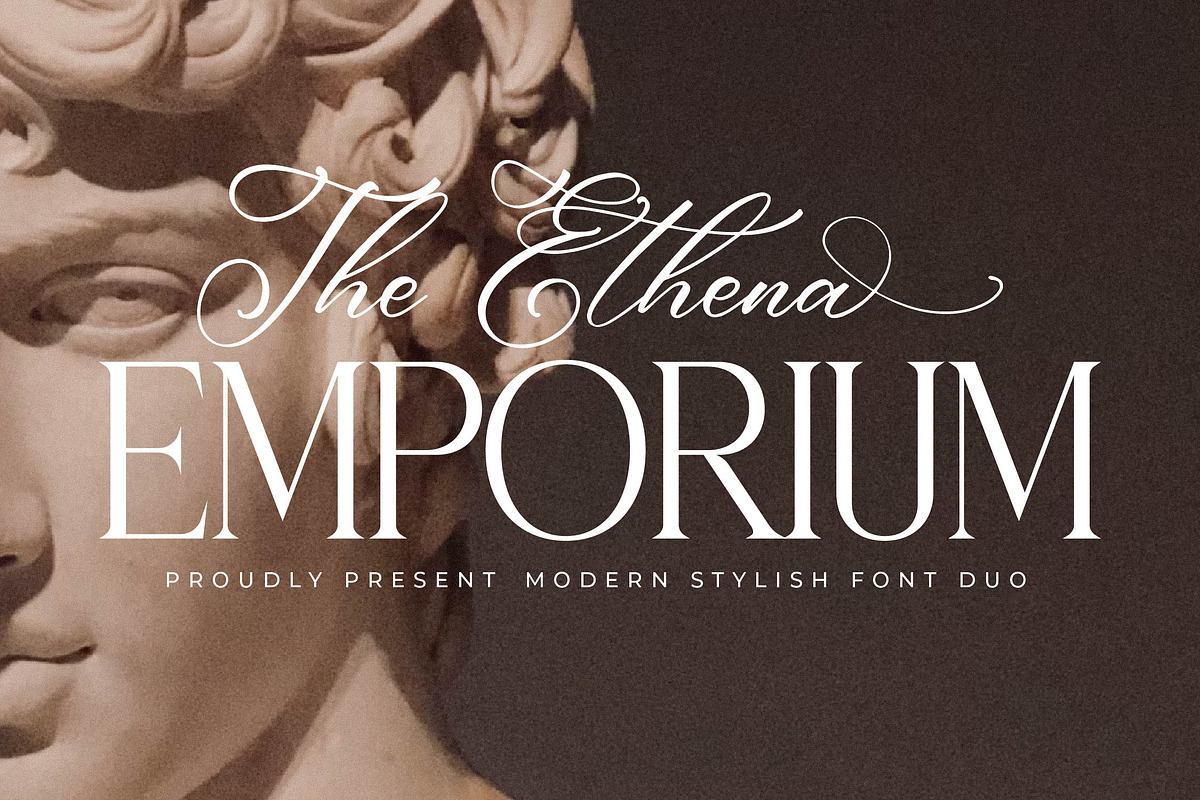
Ethena Emporium Font Duo Free Download
Please note, you must purchase this font for commercial use. However, you can easily download Ethena Emporium Font Duo Free Download for personal use and testing purposes. Ethena Emporium Font Duo is a versatile and elegant font pair that brings together a beautifully crafted serif and a stylish script font. This dynamic duo is perfect for creating sophisticated designs such as branding, logos, invitations, and editorial projects. Whether you are working on a high-end boutique logo, a luxurious product label, or a personalized greeting card, Ethena Emporium Font Duo Free Download ensures your designs stand out with grace and style. The combination of refined serifs and flowing script makes this font duo a perfect choice for projects that need both class and creativity. Download Ethena Emporium Font Duo Free Download today and explore its creative potential before deciding on a commercial license.